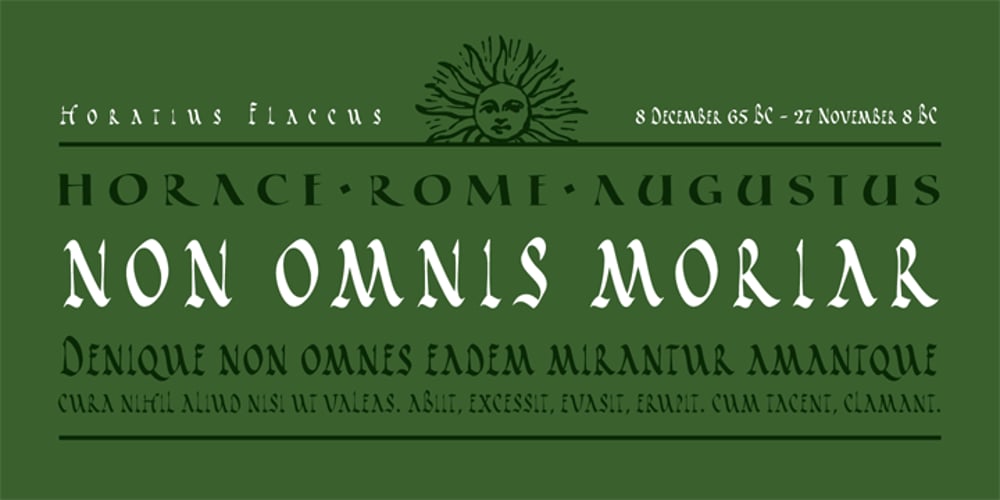
Cal Rustic Capitals Font Family was designed by Lazar Dimitrijević and published by Posterizer KG. Cal Rustic Capitals contains 1 styles and family package options. Calligrapher Rustic Capitals Font, is one of the calligraphic group of fonts called “21 alphabets for Calligraphers“. All graphemes are taken from calligraphic pages written on traditional Rustic Capitals calligraphic stile. This font is ideal for calligraphic sketches or for imitation of ancient manuscripts. It contains all the Latin glyphs.